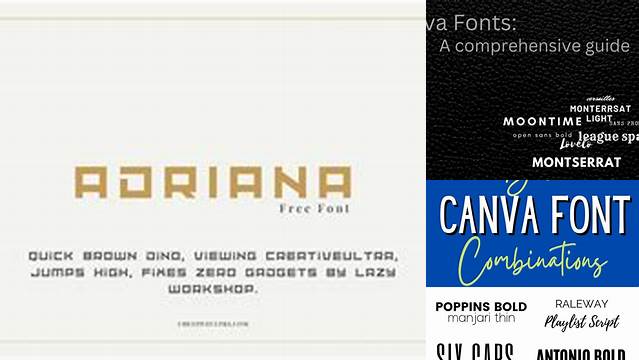
Adriana Canva Font: Free Download Alternatives & Tips
Hey guys! Are you looking to enhance your design projects with a touch of elegance and sophistication? Look no further! The Adriana Canva font is here to help you achieve just that. In this comprehensive guide, we'll delve deep into everything you need to know about this fantastic font, including how to download it for free, its unique characteristics, and how you can effectively use it in your designs. So, buckle up and let's get started!
What is Adriana Canva Font?
Adriana is not available as an official Canva font, but it's easy to find similar, equally stunning options within Canva's extensive font library or by uploading your own. So, let's talk about what makes a font like Adriana so appealing. When we talk about fonts that feel like Adriana, we're talking about fonts with a certain sophistication and elegance. Fonts like Adriana often have a clean, modern look with a touch of personality. They're versatile enough to be used in a variety of projects, from branding materials and logos to website designs and social media graphics. The key characteristics of an "Adriana-esque" font typically include a balanced structure, clear legibility, and a distinct style that sets it apart. Imagine a font that's both professional and approachable, perfect for conveying a message with clarity and style. These fonts often feature a medium weight, making them suitable for both headings and body text, and their letterforms are carefully crafted to ensure visual harmony. Choosing the right font is crucial for effective design. It can impact readability, convey brand personality, and ultimately influence how your message is received. A font like Adriana, or its counterparts, can bring a sense of refinement and modernity to your projects, helping you create designs that are both beautiful and impactful. Whether you're designing a logo, creating marketing materials, or working on a website, selecting a font with the right characteristics can elevate your work and ensure your message resonates with your audience. So, while Adriana itself might not be a one-click Canva option, the spirit of Adriana – its elegance, versatility, and modern appeal – can certainly be found and replicated within the platform. Keep an eye out for fonts with similar qualities, and you'll be well on your way to achieving the same sophisticated look and feel in your designs.
Why Choose Adriana or Similar Fonts?
So, why should you consider using Adriana or fonts that share its aesthetic? Well, guys, the answer is simple: these fonts can seriously elevate your designs. Fonts like Adriana offer a unique blend of professionalism and personality, making them perfect for a wide range of applications. They're not just about looking pretty; they're about communicating your message effectively. Think of your font as the voice of your design. Would you want a voice that's dull and monotonous, or one that's clear, engaging, and leaves a lasting impression? Fonts in the Adriana style are designed to do just that – leave a lasting impression. They have a way of capturing attention without being overly flashy, making them ideal for projects where you want to convey a sense of trust and reliability. Whether you're designing a logo for a new business, creating a website, or putting together a presentation, the right font can make all the difference. It can help you establish your brand identity, communicate your message clearly, and create a visual experience that resonates with your audience. Moreover, fonts like Adriana are incredibly versatile. They work well in both headlines and body text, so you can use them throughout your design without creating visual clutter. They also pair well with a variety of other fonts, giving you the flexibility to create unique and interesting typographic combinations. So, if you're looking for a font that's both stylish and functional, fonts similar to Adriana are an excellent choice. They can help you create designs that are not only visually appealing but also communicate your message effectively and leave a lasting impression on your audience. Don't underestimate the power of typography – it's one of the most important elements of design, and choosing the right font can make all the difference in the world.
Tips for Using Adriana and Similar Fonts Effectively
Okay, guys, now that you know how to download and use fonts like Adriana, let's talk about how to use them effectively. Just having a great font isn't enough; you need to know how to wield its power to create truly stunning designs. Here are some top tips to help you make the most of Adriana and similar fonts. First and foremost, consider your brand identity. Your font choices should align with your brand's personality and values. If your brand is elegant and sophisticated, a font like Adriana is a perfect fit. But if your brand is more playful and quirky, you might want to opt for something different. Think about the message you want to convey and choose a font that helps you communicate that message effectively. Next up, pay attention to hierarchy. Typography plays a crucial role in creating a clear visual hierarchy in your designs. Use different font sizes, weights, and styles to guide the viewer's eye and emphasize important information. For example, you might use Adriana in a bold weight for headings and a regular weight for body text. This creates a clear distinction between the different elements of your design and makes it easier for people to read and understand your message. Another key tip is to use white space effectively. Don't overcrowd your designs with text. Give your text room to breathe by leaving plenty of white space around it. This will make your designs look cleaner, more professional, and easier to read. White space also helps to draw attention to the important elements of your design, so use it strategically. And last but not least, don't be afraid to experiment. Try different font combinations, sizes, and styles to see what works best for your project. There are no hard and fast rules when it comes to typography, so have fun and let your creativity shine. With a little practice, you'll develop an eye for what looks good and be able to create beautiful, effective designs that truly stand out. So, go ahead and unleash your inner typographer!
Conclusion: Elevate Your Designs Today
So, there you have it, guys! A comprehensive guide to Adriana Canva font and how to elevate your designs with its elegant style. While Adriana might not be directly available in Canva, the principles and tips we've discussed will help you find and use similar fonts to achieve the same sophisticated look. Remember, typography is a powerful tool that can make or break a design. By choosing the right fonts and using them effectively, you can create visuals that are not only beautiful but also communicate your message clearly and leave a lasting impression. We've covered everything from understanding what makes a font like Adriana so appealing to finding free alternatives, downloading and using them in Canva, and implementing them effectively in your projects. Now it's your turn to put these tips into practice. Don't be afraid to experiment, try new things, and let your creativity shine. Whether you're designing a logo, creating marketing materials, or working on a website, the right font can make all the difference. So, go ahead and explore the world of typography, and discover the amazing possibilities that await you. With a little bit of knowledge and a lot of creativity, you can transform your designs from ordinary to extraordinary. So, what are you waiting for? Elevate your designs today and let your typography speak volumes!